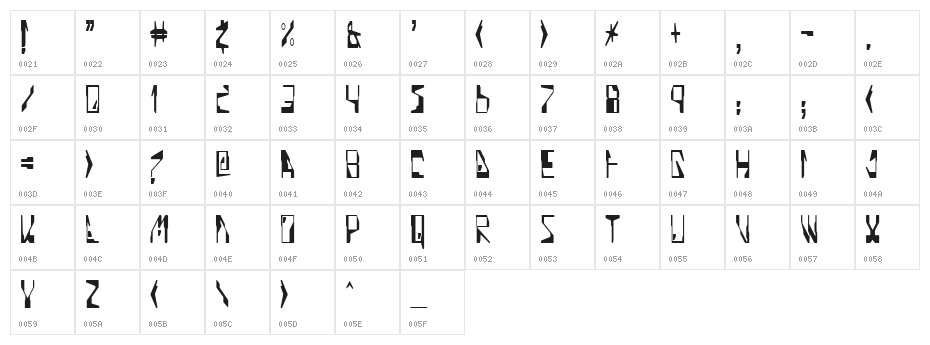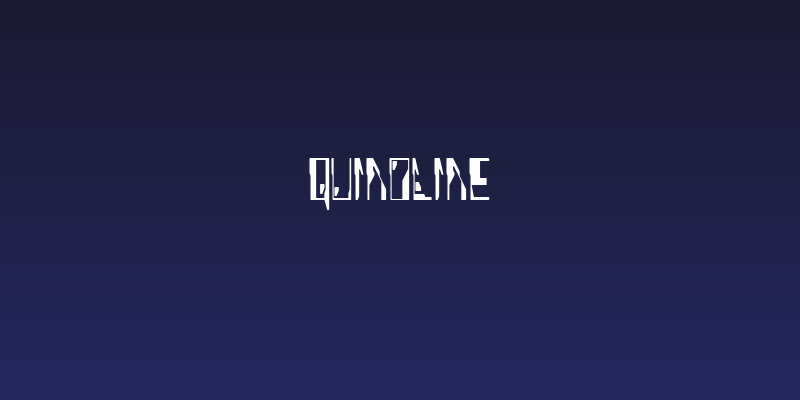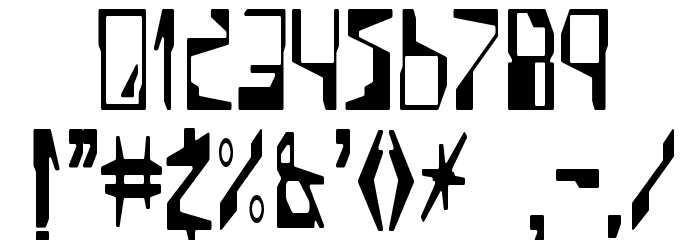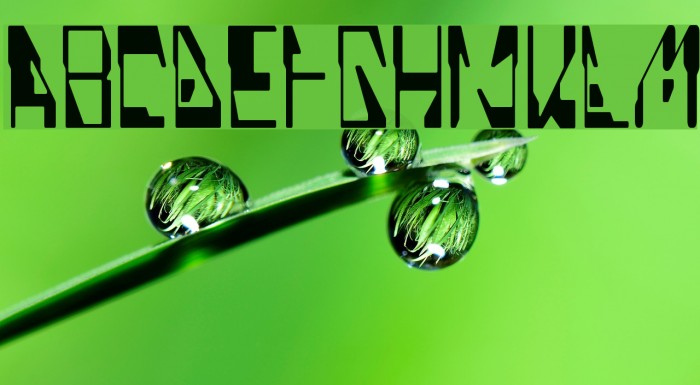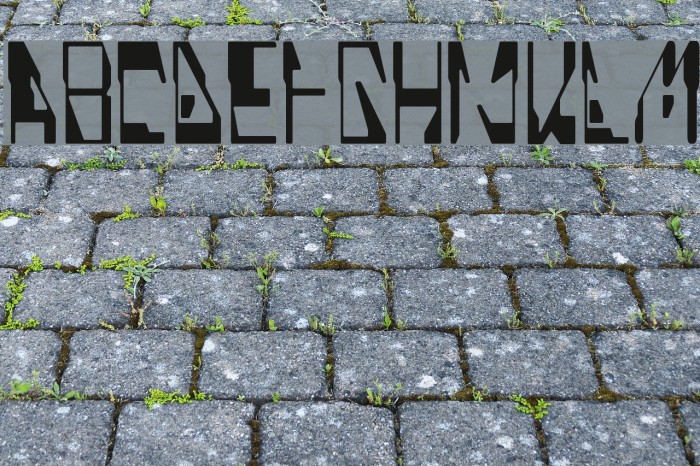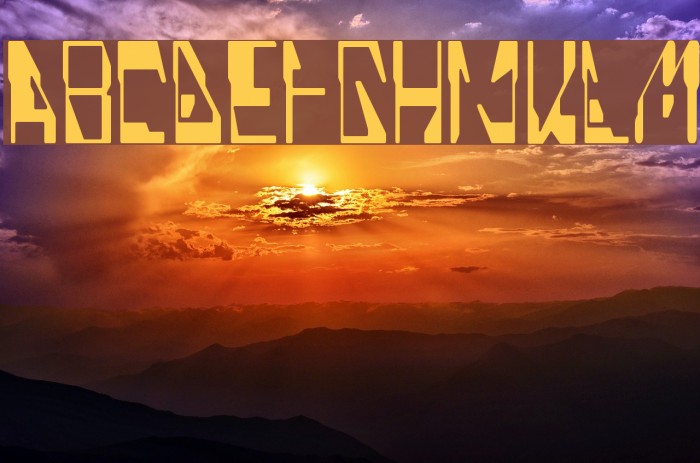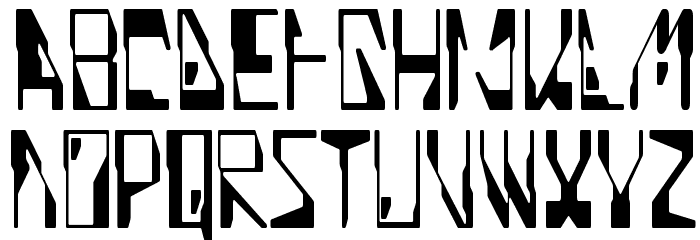
Quinoline Font
Quinoline Description
This font features a bold, geometric design with a futuristic and abstract appearance. The characters are constructed with sharp angles and unique cutouts, creating a sense of movement and energy. The uppercase and lowercase letters maintain a consistent style, with each character displaying a distinct and artistic form. The numerals and special characters follow the same design principles, ensuring a cohesive look across all elements. This font's striking visual impact makes it ideal for projects that require a modern and edgy aesthetic.
| Proposed Projects | Ideal for sci-fi themed designs, modern branding, album covers, and digital artwork. |